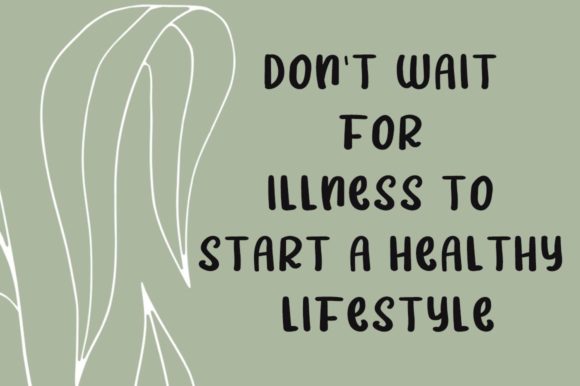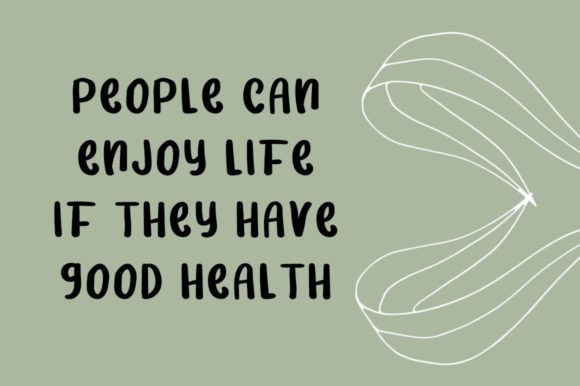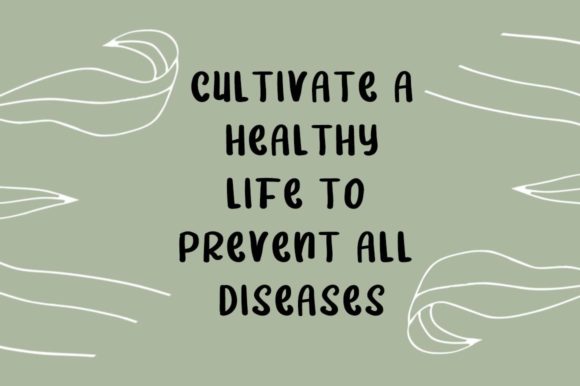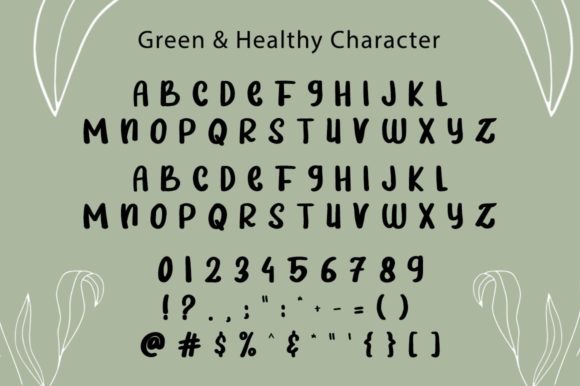
Introducing Green Healthy Font: The Perfect Choice for Creative Projects
Are you a designer, crafter, or DIY enthusiast looking for a unique and eye-catching font to elevate your creative projects? Look no further than Green Healthy Font, a cute and casual handwritten font that is sure to turn heads. In this article, we’ll explore the features and benefits of Green Healthy Font, and discuss how it can be used to add a touch of personality to a wide range of projects.
What is Green Healthy Font?
Green Healthy Font is a beautiful, handwritten font that is perfect for adding a personal touch to any creative project. Its casual, laid-back vibe makes it ideal for use in a variety of contexts, from social media graphics and DIY projects to logos, headings, and more. With its unique and charming lettering style, Green Healthy Font is sure to make your projects stand out from the crowd.
Key Features of Green Healthy Font
• Cute and Casual: Green Healthy Font has a playful, informal feel that is perfect for creating fun and engaging projects.
• Handwritten Style: The font’s handwritten style gives it a personal, human touch that is sure to resonate with audiences.
• Versatile: Green Healthy Font can be used in a wide range of contexts, from logos and headings to t-shirts, letterhead, and more.
• Easy to Read: Despite its casual style, Green Healthy Font is easy to read and understand, making it perfect for use in body text and other applications where legibility is key.
Uses for Green Healthy Font
Green Healthy Font is a versatile font that can be used in a wide range of creative projects. Here are just a few ideas to get you started:
• Social Media Graphics: Use Green Healthy Font to add a personal touch to your social media graphics, including Instagram posts, Facebook updates, and more.
• DIY Projects: Green Healthy Font is perfect for use in DIY projects, such as handmade cards, gift tags, and other paper crafts.
• Logos and Headings: Use Green Healthy Font to create eye-catching logos and headings for your website, business, or brand.
• T-Shirts and Apparel: Green Healthy Font is a great choice for use on t-shirts, hats, and other apparel.
• Signage and Labels: Use Green Healthy Font to create eye-catching signage and labels for your business or organization.
Why Choose Green Healthy Font?
So why should you choose Green Healthy Font for your creative projects? Here are just a few reasons:
• Unique Style: Green Healthy Font has a unique and charming style that is sure to make your projects stand out.
• Versatile: Green Healthy Font can be used in a wide range of contexts, making it a great choice for designers and crafters who work on a variety of projects.
• High-Quality: Green Healthy Font is a high-quality font that is designed to look great in any context.
Font Name Green Healthy Font
Author rangkaiaksara
Green Healthy Font is a beautiful, handwritten font that is perfect for adding a personal touch to any creative project. With its cute and casual style, versatile uses, and high-quality design, it’s a great choice for designers, crafters, and DIY enthusiasts alike. Whether you’re looking for a font for social media graphics, DIY projects, or logos and headings, Green Healthy Font is sure to turn your creative ideas into true pieces of art.